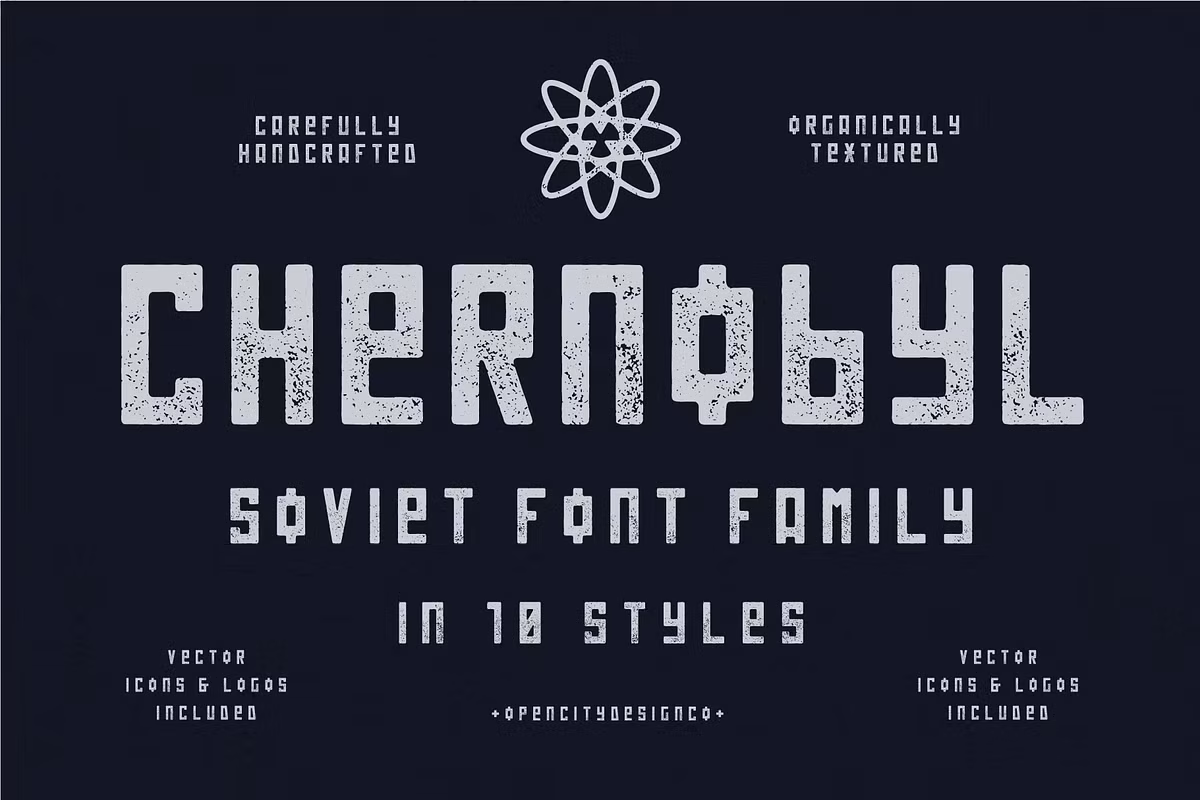
Chernobyl - Soviet Font Family Free Download is a bold, vintage-inspired typeface that captures the essence of Soviet-era typography with a modern twist. Featuring strong, geometric letterforms and a robust design, this font family is perfect for creating designs that need a historical, industrial, or retro feel. Ideal for posters, branding, logos, book covers, and digital media, Chernobyl brings power and strength to any project.
The font family includes various weights, allowing for versatility and dynamic use in both headlines and body text. Whether you're working on a historical project, vintage-inspired design, or branding with an industrial aesthetic, Chernobyl is sure to deliver a memorable impact.